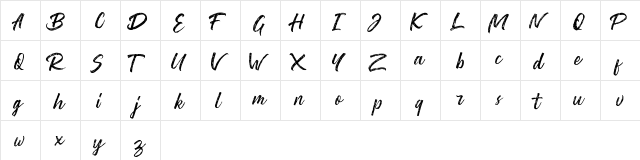
Washington ~ Rough Script DEMO Regular
Design Context for Washington ~ Rough Script DEMO Typeface
Washington ~ Rough Script DEMO embraces imperfection — its rough, textured character adds raw authenticity to designs that want to feel lived-in and unconventional.
Suited to punk-influenced zines, underground music branding, streetwear, and raw, anti-corporate design.
Pro Tip: Pair Washington ~ Rough Script DEMO with intentionally raw or lo-fi design elements. Fighting against it with overly polished surroundings will undermine its personality.